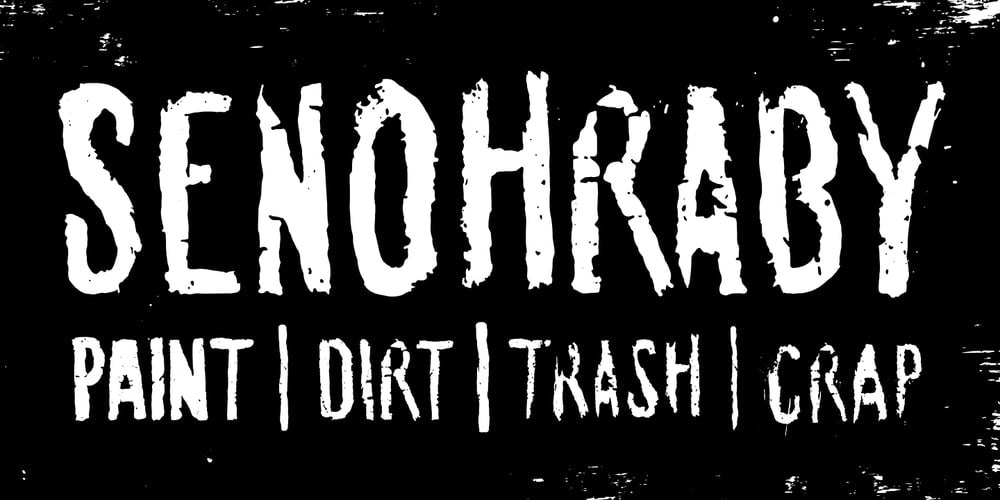
Senohraby Font Family was designed by Jakub Spurný and published by Spurnej Type Foundry. Senohraby contains 4 styles and family package options. Senohraby is an uppercase display typeface inspired by the old sign at Senohraby train station that is now slowly chipping away. Senohraby is available in three interconnected styles that freely various ages of the sign. “Paint” is a more or less preserved font written with a flat brush and featuring slight scratches and errors. The other styles, “Dirt” and “Trash”, follow up on this style and are increasingly marked by age, damage and erosion… In each style one can use simple alternation with lowercase letters, context-based alternation to eliminate repetition of adjacent characters, and a broad range of language support. As a result, each letter offers six variations that can be combined. These can be used as another alternation within a single word or as different bold weights. As a bonus, a fourth, additional style named “Crap” is freely available and as the name implies, it contains a wide array of various impurities.